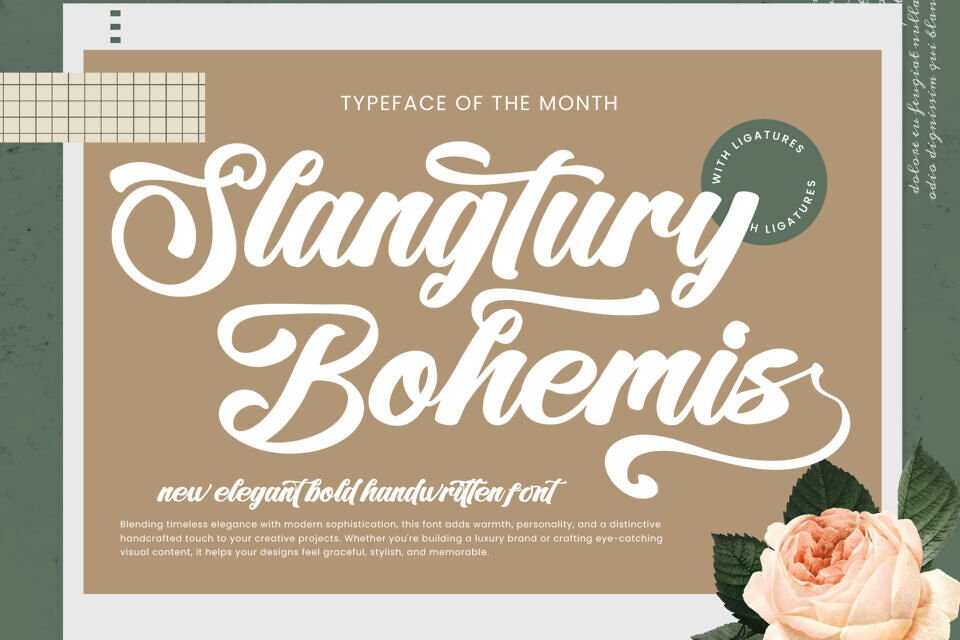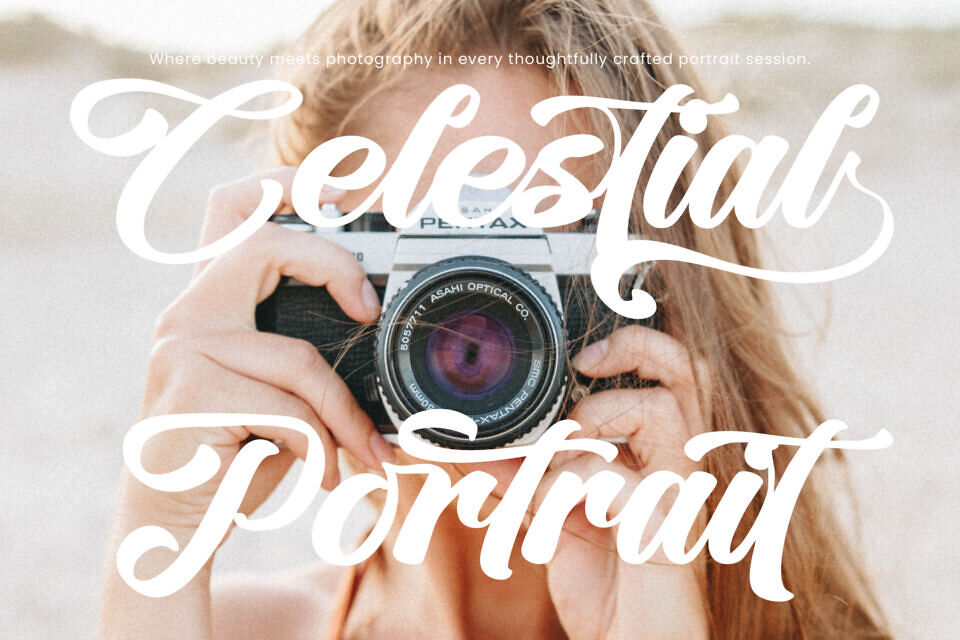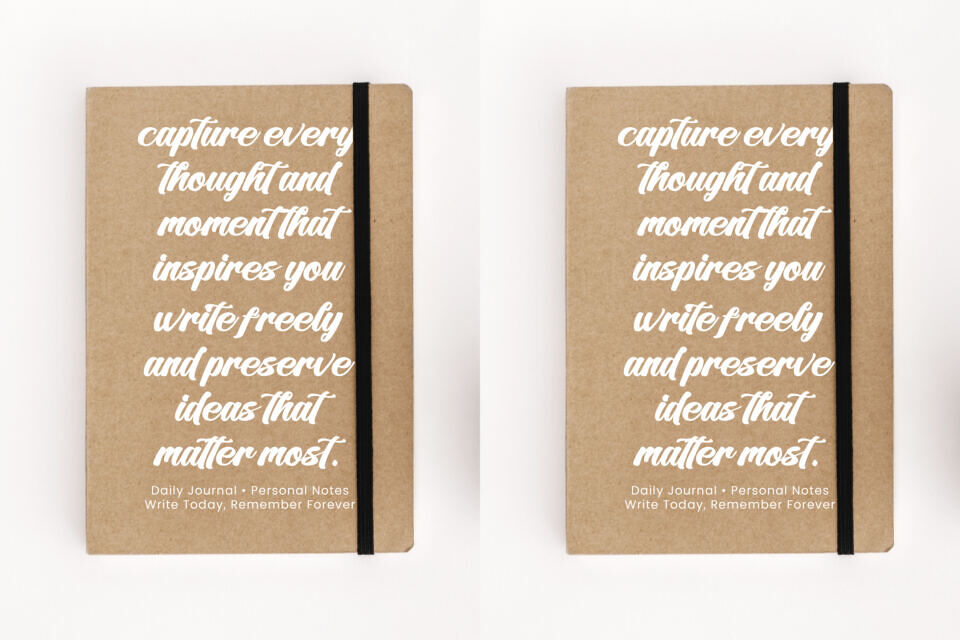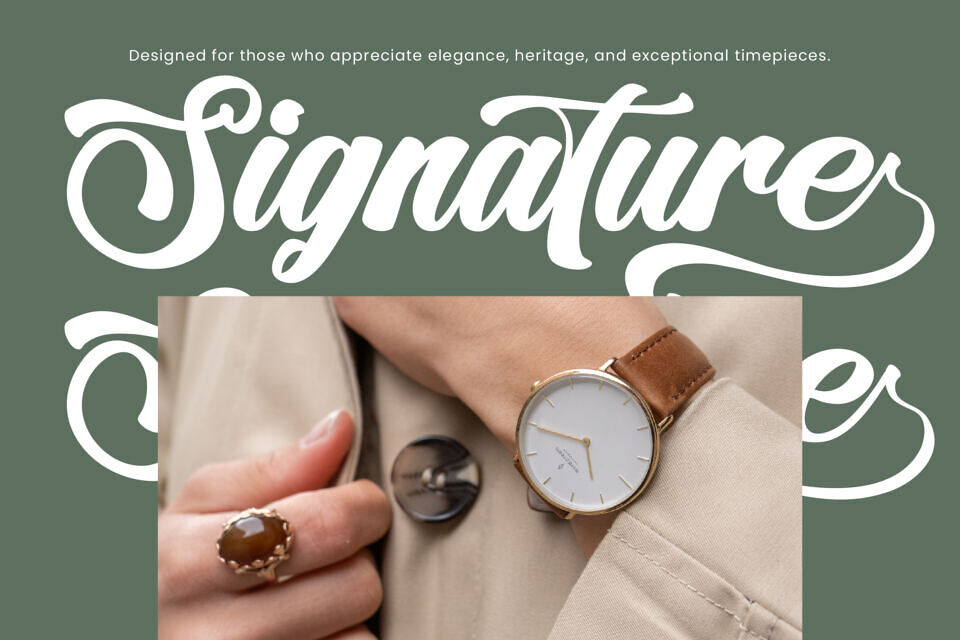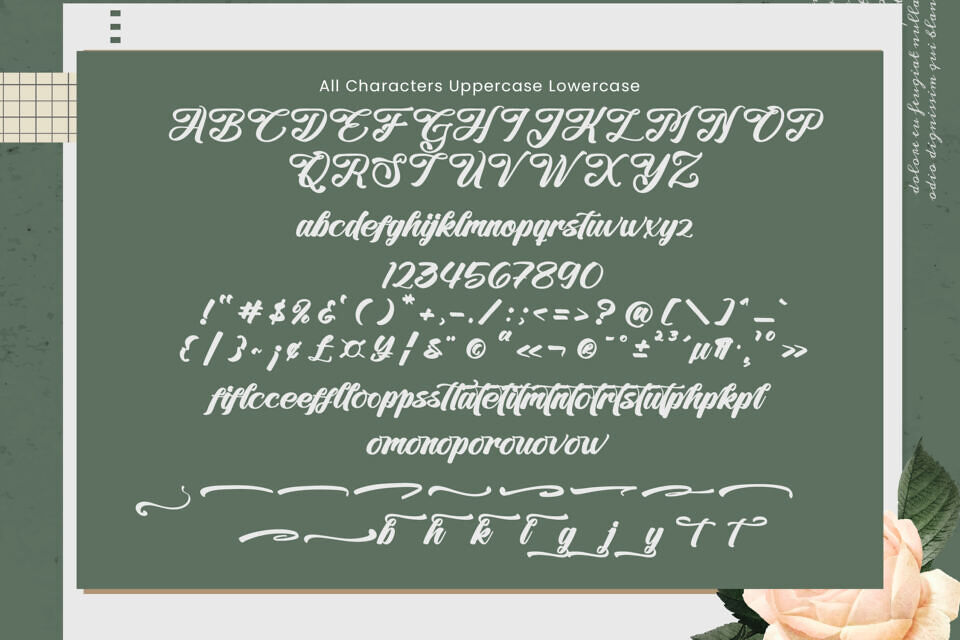
Slangtury Bohemis is an elegant bold handwritten font that combines classic sophistication with modern charm. Featuring smooth flowing curves, bold strokes, and beautifully crafted swashes, this typeface creates a luxurious and expressive look that instantly captures attention.
Complete with stylish ligatures and decorative alternates, this font offers endless possibilities for creating unique and memorable typography. Whether you’re developing luxury branding, designing wedding invitations, crafting product packaging, or creating eye-catching social media content, Slangtury Bohemis adds warmth, personality, and timeless beauty to your designs.